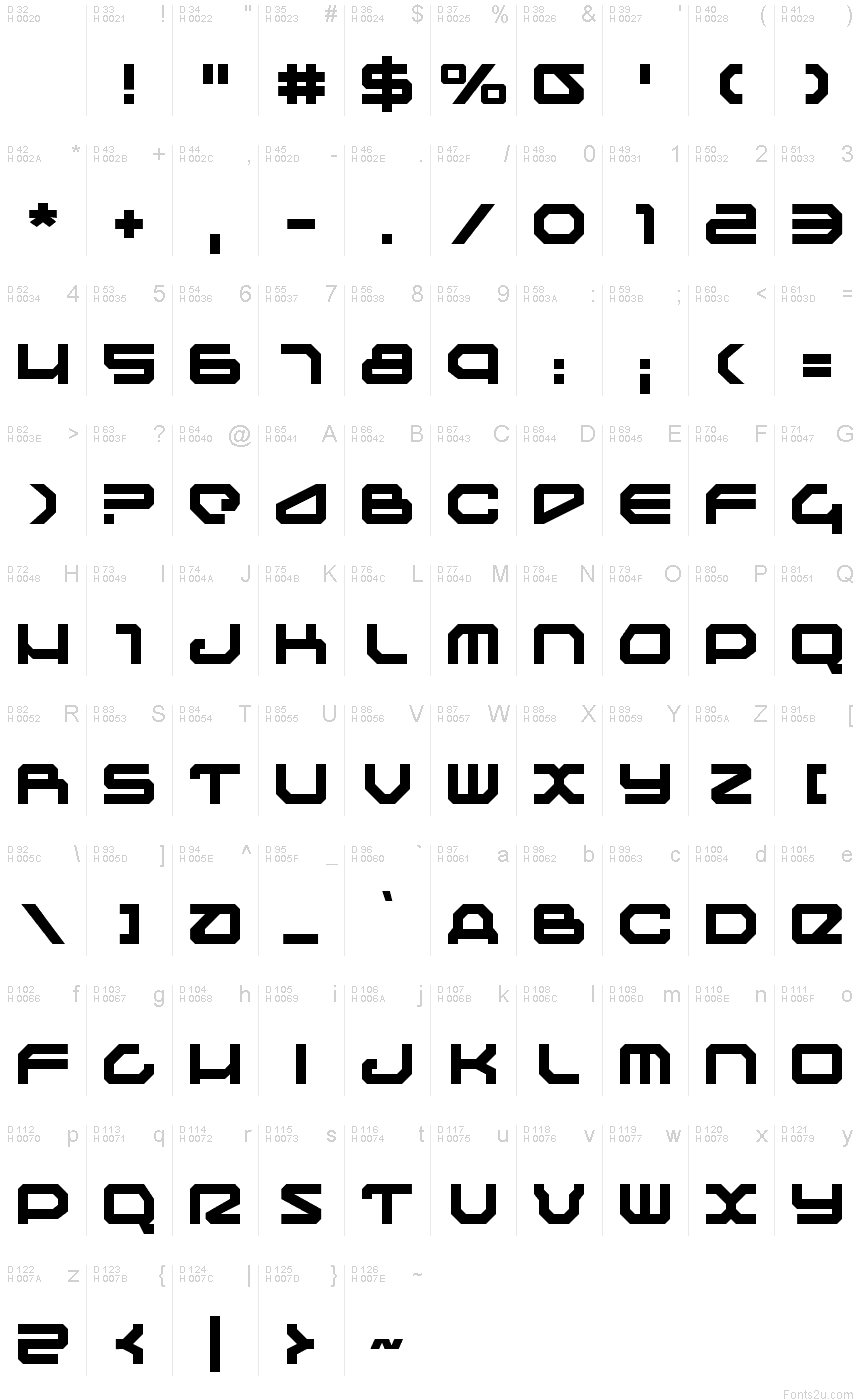
Traveler by Daniel Zadorozny of Iconian Fonts is a free futuristic caps display font built from broad, sharply cut geometric strokes. Its squared framework, clipped corners, and open breaks give the letters the hard-edged look of spacecraft markings or an arcade interface, with little softness in their silhouettes.
Science-fiction and gaming audiences will recognize its mechanical forms immediately. It fits game packaging, event posters, screen graphics, and merchandise aimed at worlds of space travel, robotics, or competitive technology. For an entertainment or electronics brand, the recurring notches can become a recognizable product signature across physical devices and digital campaign graphics.